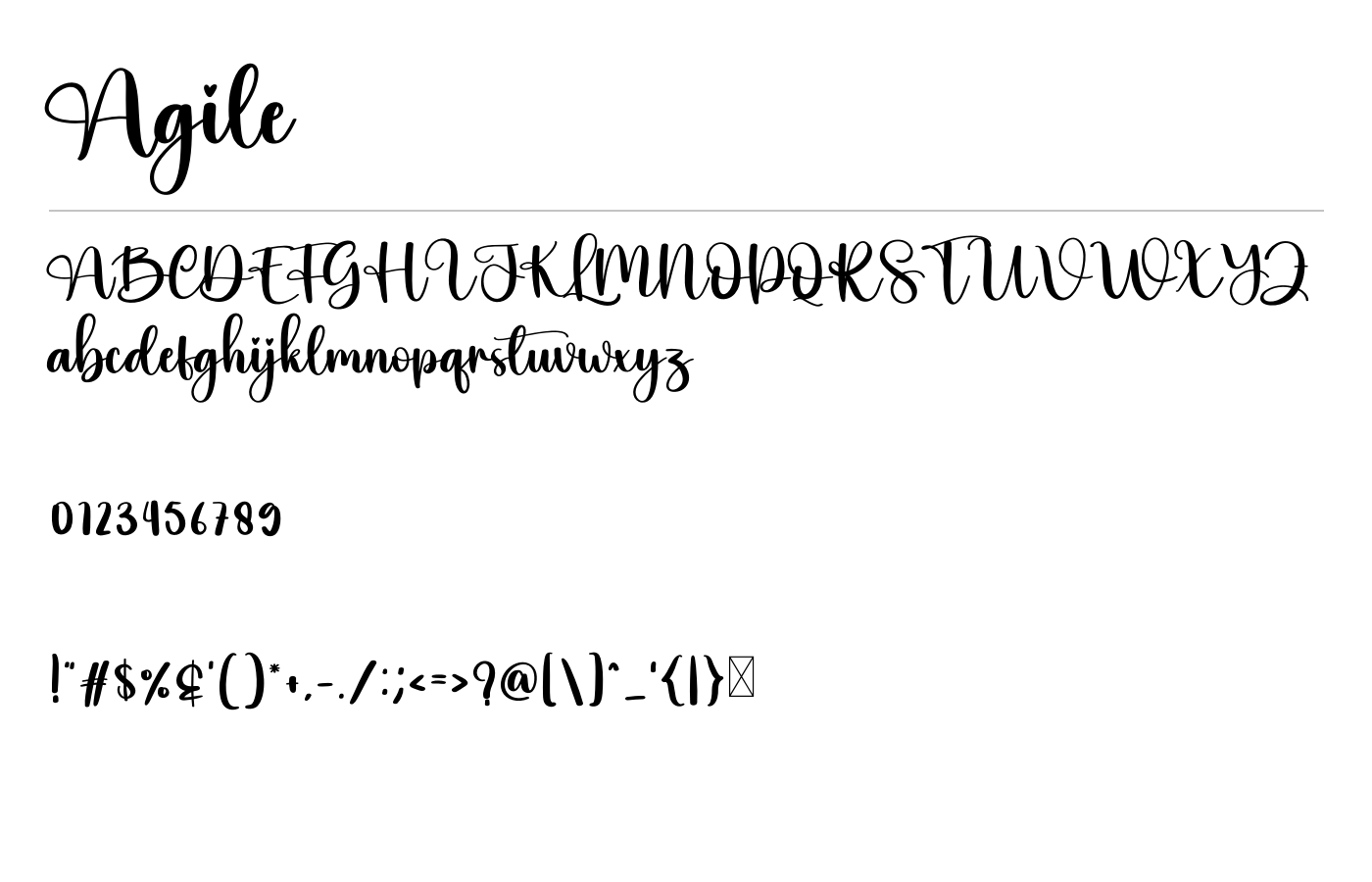
Agile Font is a lively, modern script typeface characterized by its smooth, flowing strokes and playful swashes that bring a friendly and elegant touch to any design. With its high contrast between thick and thin lines, and charming details like heart-shaped dots, it is perfect for branding, invitations, and creative projects that seek a personal, stylish, and approachable feel. This font works best in headlines, logos, and decorative uses where its graceful flair can truly shine.
Agile Font